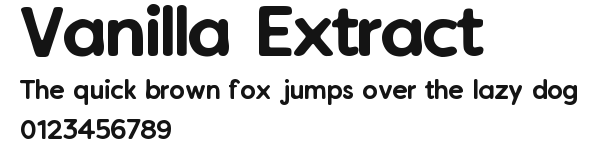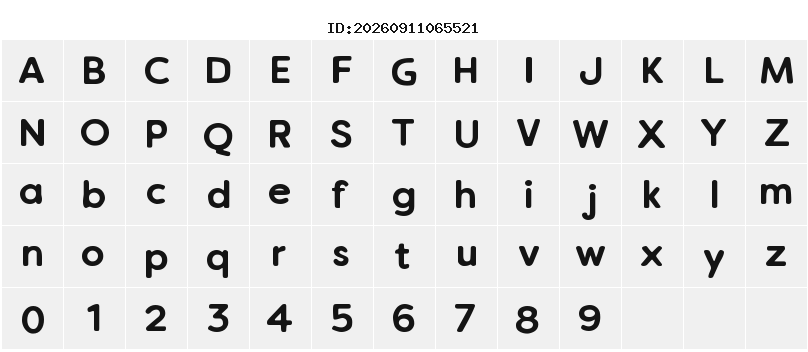
• Designer: Shara Weber
Vanilla Extract.ttf is a modern, elegant sans-serif font designed for ultimate readability and visual harmony. Perfect for branding, headlines, web design, and print materials.